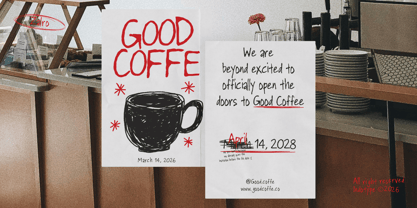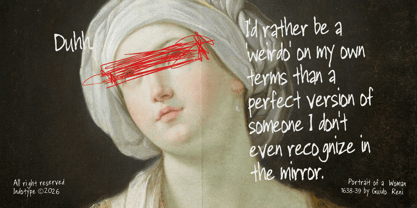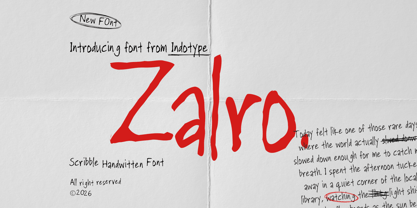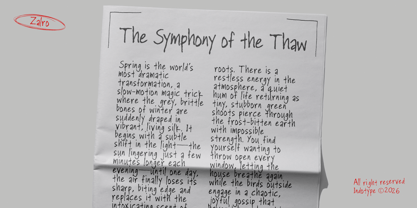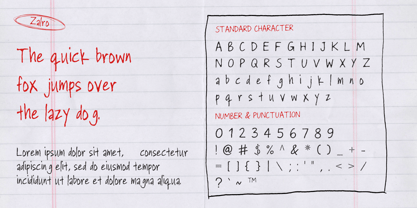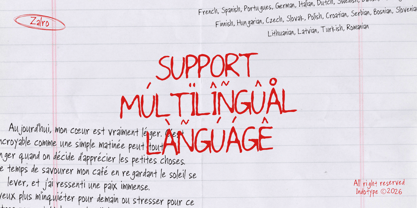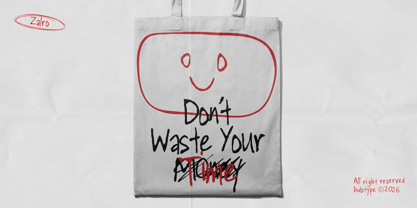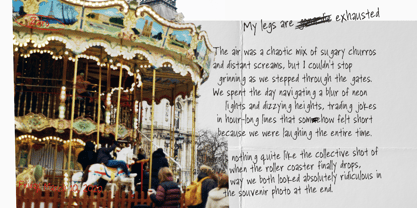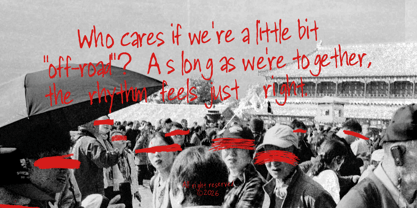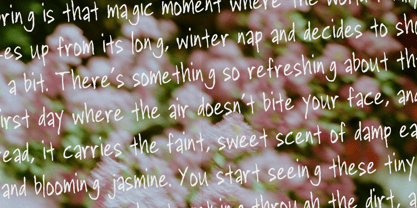
IT Zalro
von Indotype
Die Schriftfamilie IT Zalro wurde von Dede Kurniawan entworfen und von Indotype veröffentlicht. IT Zalro enthält 1 Stile. Mehr über diese Familie
Zalro is a personal, rapid-fire scribble font that captures the raw, unfiltered energy of spontaneous handwriting—the kind found in a journal margin, a quick note, or a heartfelt letter. With its natural bounce, variable stroke weights, and slightly textured finish, Zalro feels authentically human, intimate, and effortlessly cool. It’s designed to mimic the flow of a pen moving quickly across paper, full of character and imperfection. This font is perfect for projects that need to feel personal, relatable, and unpretentious. Use Zalro for journal-style branding, social media quotes that resonate, personal blog headers, indie book titles, or any design that aims to connect on a human level. It’s not about perfection—it’s about presence, personality, and the beauty of the unpolished mark. • Ideal for: Journal & Diary Branding, Social Media Quotes, Personal Blog Headers, Indie Book Covers, Handwritten Notes, Intimate Branding. • Classification: Script, Handwritten, Scribble, Informal. • Attributes: Intimate, Raw, Personal, Relaxed, Authentic, Bouncy, Unfiltered.
Designer: Dede Kurniawan
Foundry: Indotype